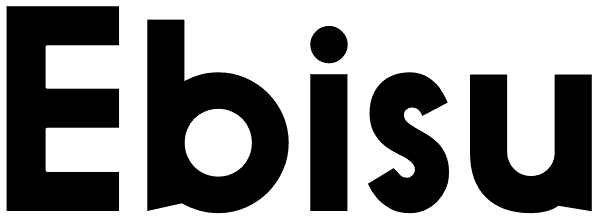
Ebisu
Ebisu is a sans serif family consisting of 10 different weights. Designed by Alex Haigh in 2010, and influenced by one of his original designs from 2008 Hiruko - Ebisu loses the soft sans serif curves, for a more robust geometric styling. But it’s...